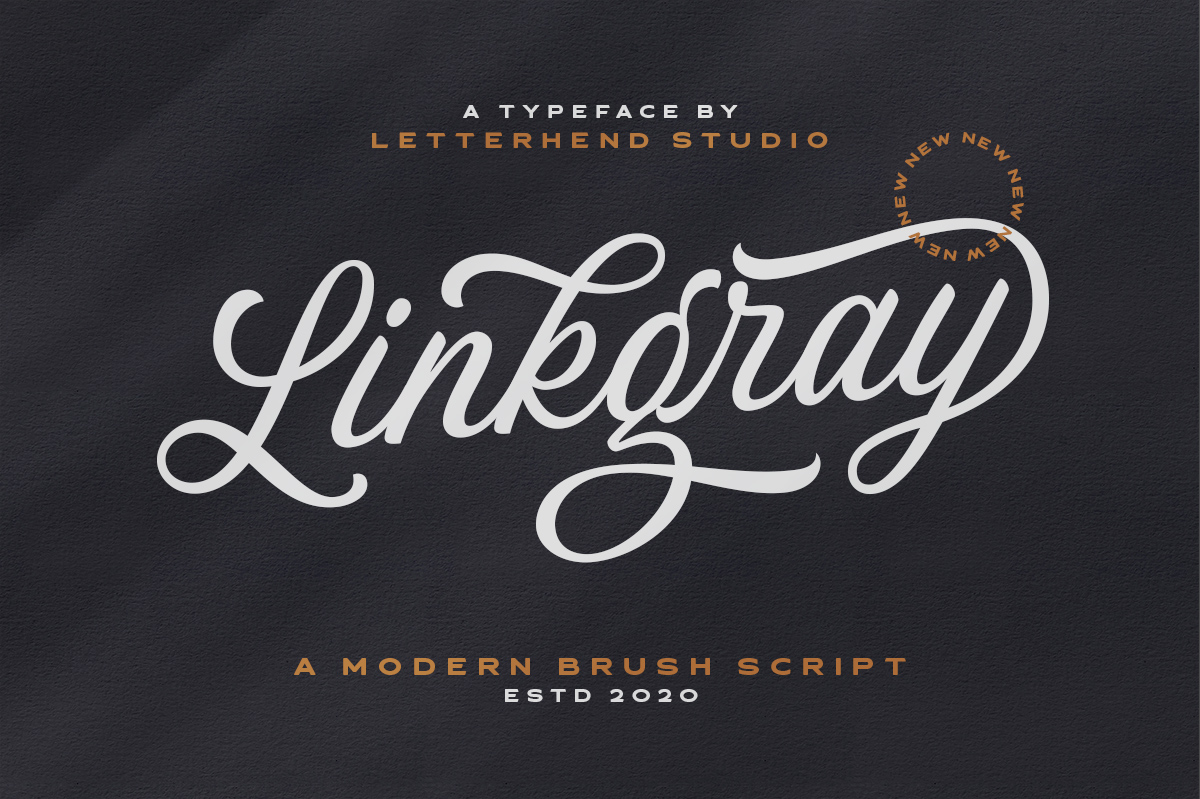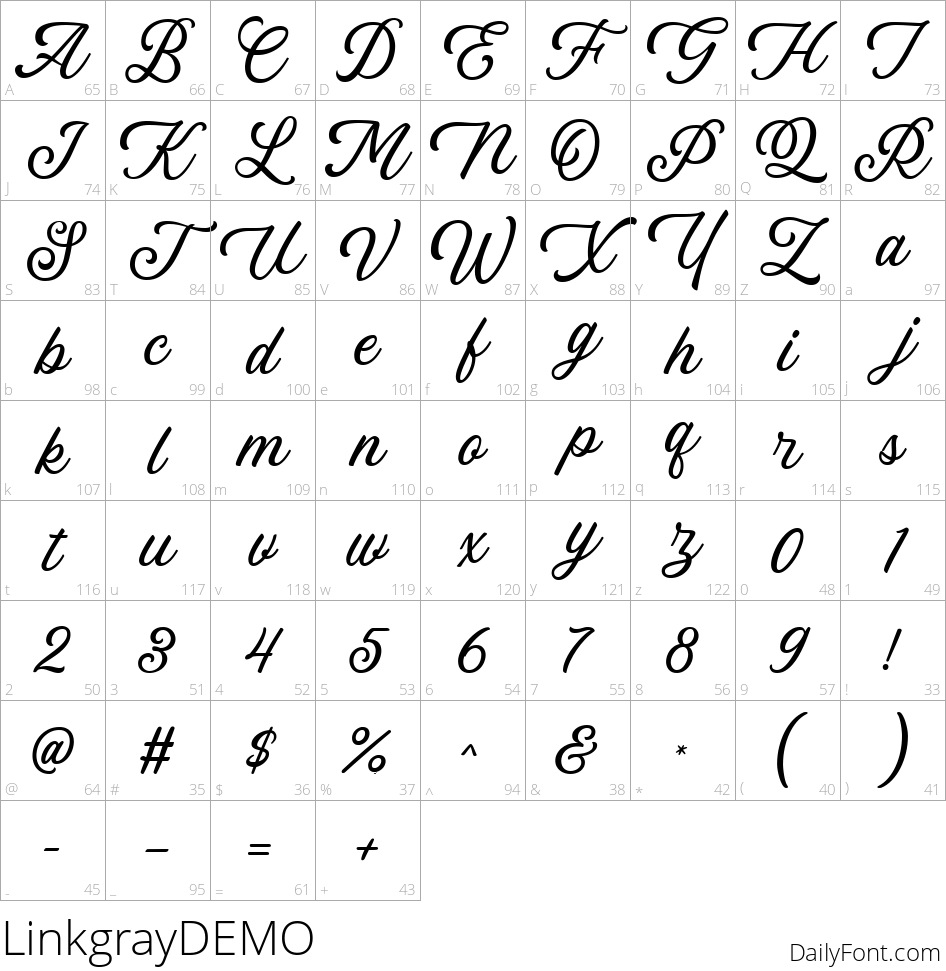
Linkgray by Letterhend Studio
Linkgray is a stunning brush script font characterized by its smooth curves and flowing lines. Perfect for adding a personal touch to your designs, it embodies elegance and creativity.